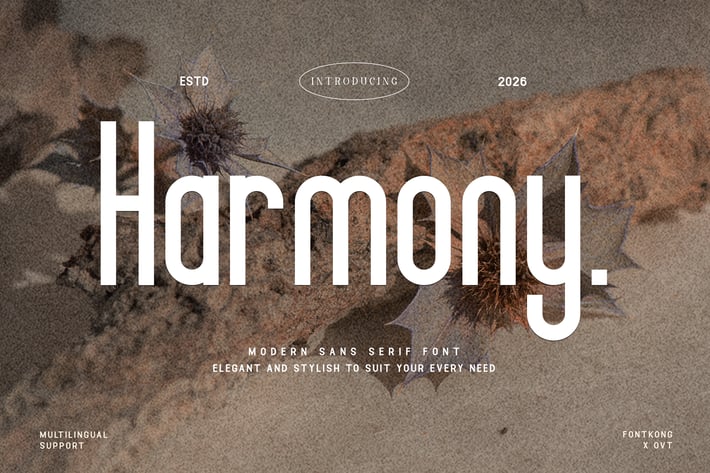
Harmony - Modern Sans Serif Font
Discover "Harmony," a modern sans serif font that exudes elegance and simplicity. Perfect for creating a clean and contemporary look, this versatile typeface is ideal for a wide range of design projects, from branding and editorial design to web and mobile interfaces.
"Harmony" features a full set of uppercase and lowercase letters, numerals, punctuation, and special characters. Its sleek lines and balanced proportions make it an excellent choice for logos, headlines, body text, and minimalist designs. The font’s refined aesthetics ensure clarity and readability, making it suitable for both print and digital applications.
With multilingual support, "Harmony" is designed to cater to global audiences. Its subtle sophistication and modern appeal make it a favorite among designers seeking a timeless yet contemporary typeface. Whether you’re working on a corporate identity, a lifestyle magazine, or a high-end website, "Harmony" delivers a polished and professional finish.
Bring balance and beauty to your projects with "Harmony."